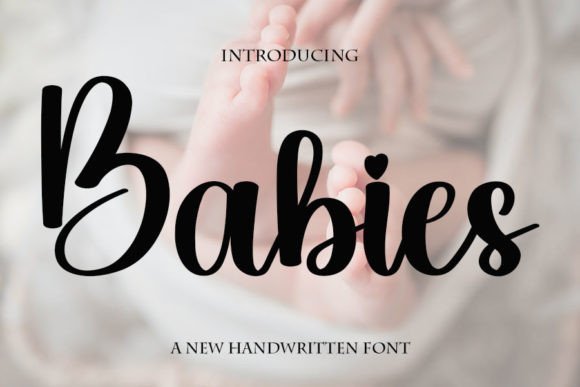
Babies Font: A Timeless Handwritten Delight
As you sit at your desk, surrounded by half-finished projects and scribbled notes, the perfect font suddenly pops into your head. It’s that moment of pure creative bliss when everything falls into place. For many designers, this moment is often sparked by the beauty of a well-chosen font. And for those who crave something elegant and unique, the Babies Font is sure to be the perfect inspiration.
Babies Font is a stunning handwritten font that exudes a touch of sophistication and charm. Whether you’re designing a wedding invitation, a children’s book, or a promotional poster, this font is sure to add a personal and distinctive touch to your work. Its timeless style makes it a valuable addition to any designer’s toolkit, and its versatility ensures that it will never go out of fashion.
Babies Font Key Features
- Size: The font comes in 6 weights, ranging from Thin to Extra Bold
- Unique Characteristics: Designed to resemble handwriting, making it perfect for baby-related projects, children’s books, and educational materials
- Script and Glyphs: Includes a wide range of glyphs, including accented letters, punctuation, and special characters
Babies Font Review
I recently had the chance to work with the Babies Font, and I must say it’s a unique and playful typeface. Here are my thoughts on what works well and what doesn’t.
- The font is incredibly cursive and perfect for adding a personal touch to nursery decor or children’s products.
- The character set is extensive, making it suitable for a wide range of applications.
- The font is highly legible, even at smaller font sizes.
- The font can feel a bit too childish and may not be suitable for professional or formal applications.
- The font lacks a bold or condensed weight, which can limit its versatility.
- The font may not be the best choice for body text due to its cursive nature.
The Babies Font is a charming and whimsical typeface that’s perfect for creating a playful atmosphere. While it may have its limitations, it’s a great choice for nursery decor, children’s products, or any project that requires a cursive and youthful feel.
Tips for Getting the Most Out of Babies Font
Some tips for using Babies Font effectively include:
– Using it for designs related to children, family, or education.
– Pairing it with other playful fonts to create a whimsical effect.
– Adjusting the font size and style to suit the design’s purpose.
Babies Font is commonly used in designs such as:
– Baby shower invitations and decorations.
– Children’s book covers and illustrations.
– Family photo albums and scrapbooks.
– Educational materials and worksheets.
Alternatives to “Babies Font” for Designers
Babies Font is a popular font used for creating a childlike or playful feel in designs. However, it may not be suitable for all projects or designs. Here are some alternatives:
Great Vibes is a modern, elegant script font that can be used to create a whimsical feel in designs. It is suitable for projects that require a touch of sophistication and playfulness. Unlike Babies Font, Great Vibes has a more refined and polished look.
Cute Font
Cute Font is a cute, childlike font that is perfect for designs that require a playful and innocent feel. It is similar to Babies Font in terms of its playful nature, but has a more subtle and refined look. Use Cute Font when you want to convey a sense of youthfulness and innocence.
Playfair Display is an elegant, high-end font that can be used to create a luxurious and sophisticated feel in designs. It is not as playful as Babies Font, but has a more refined and sophisticated look. Use Playfair Display when you want to convey a sense of luxury and elegance.